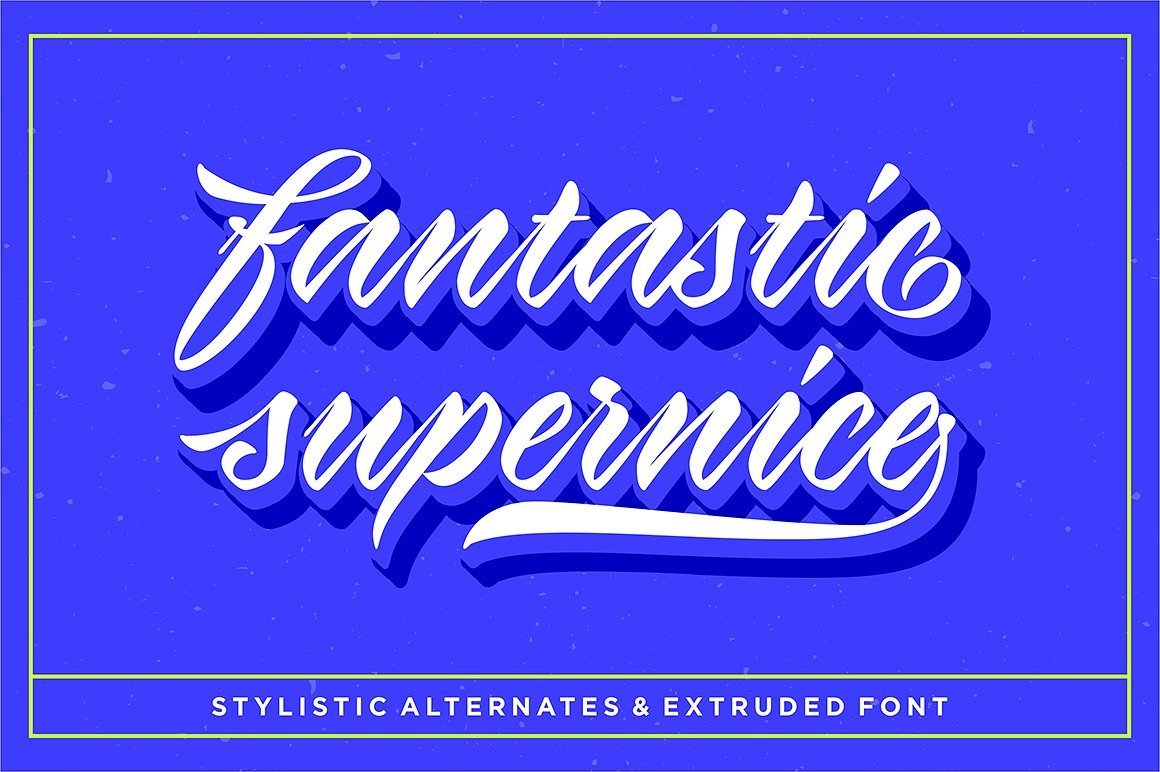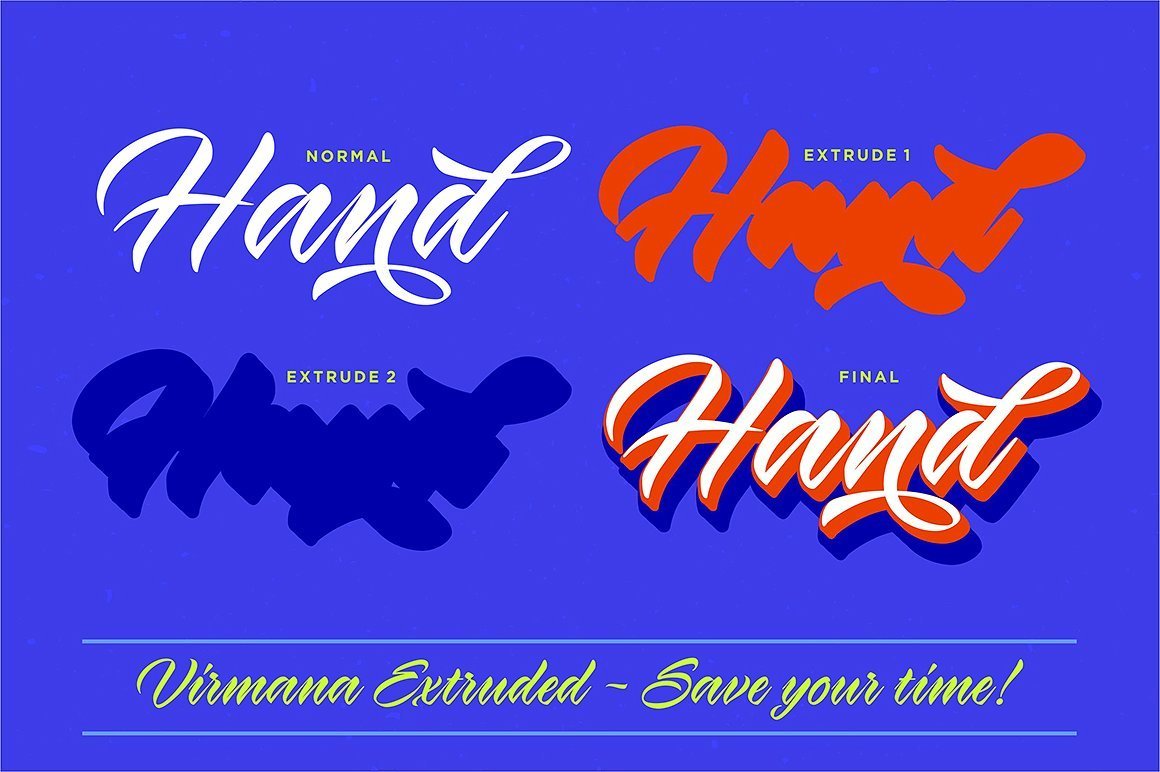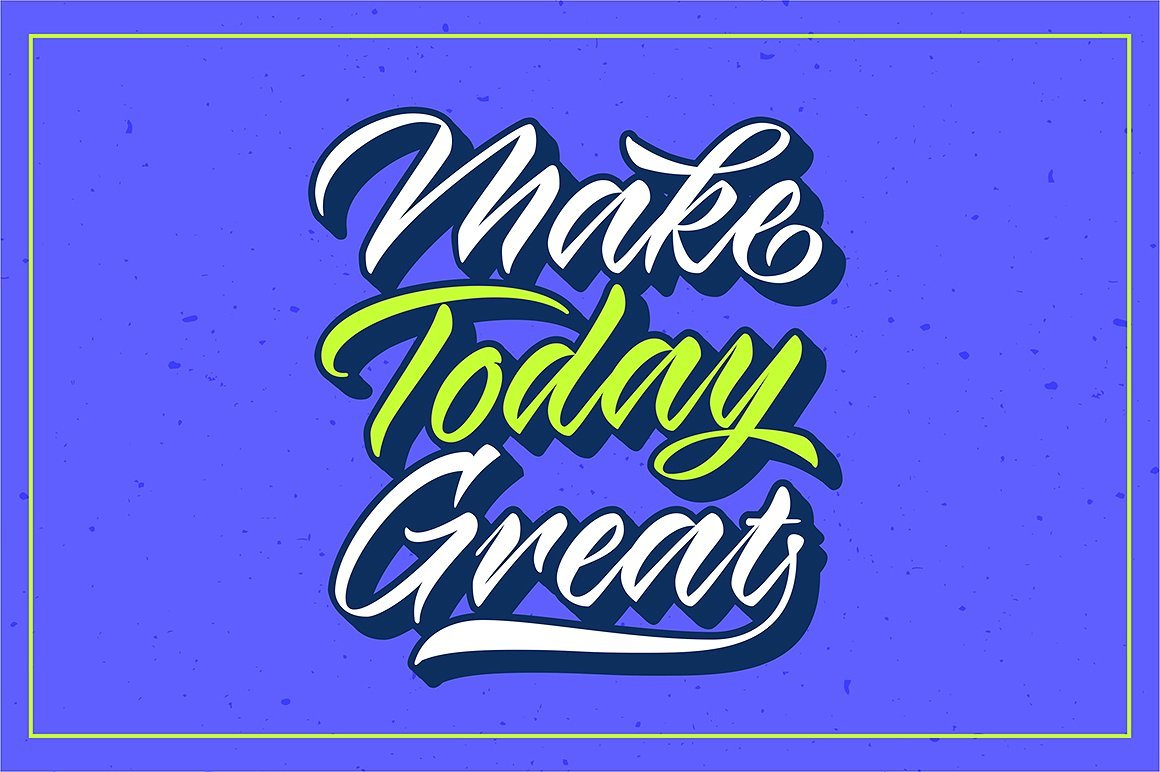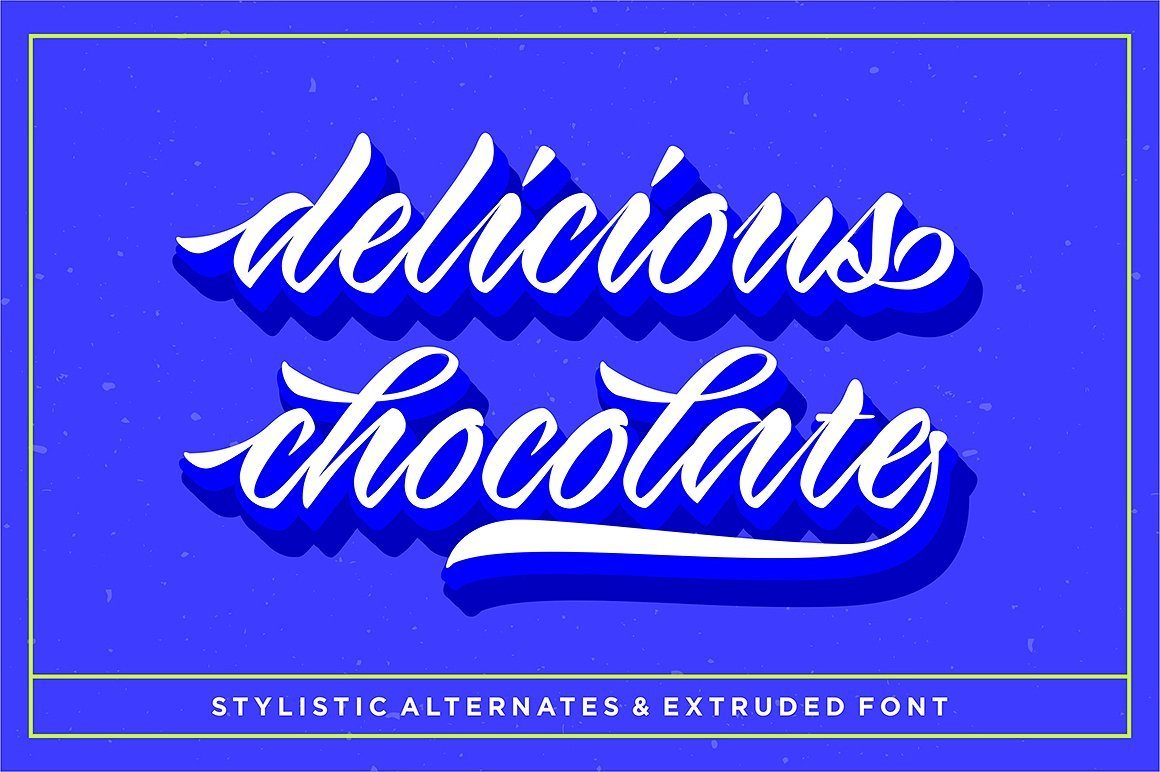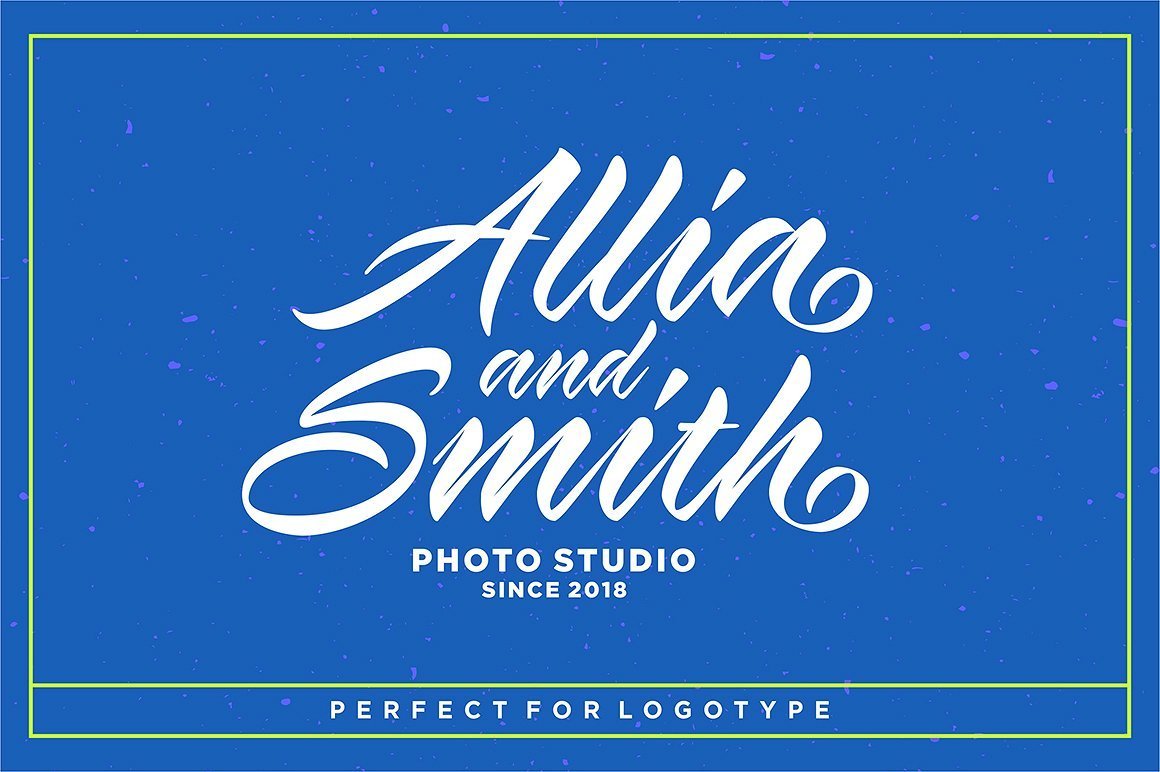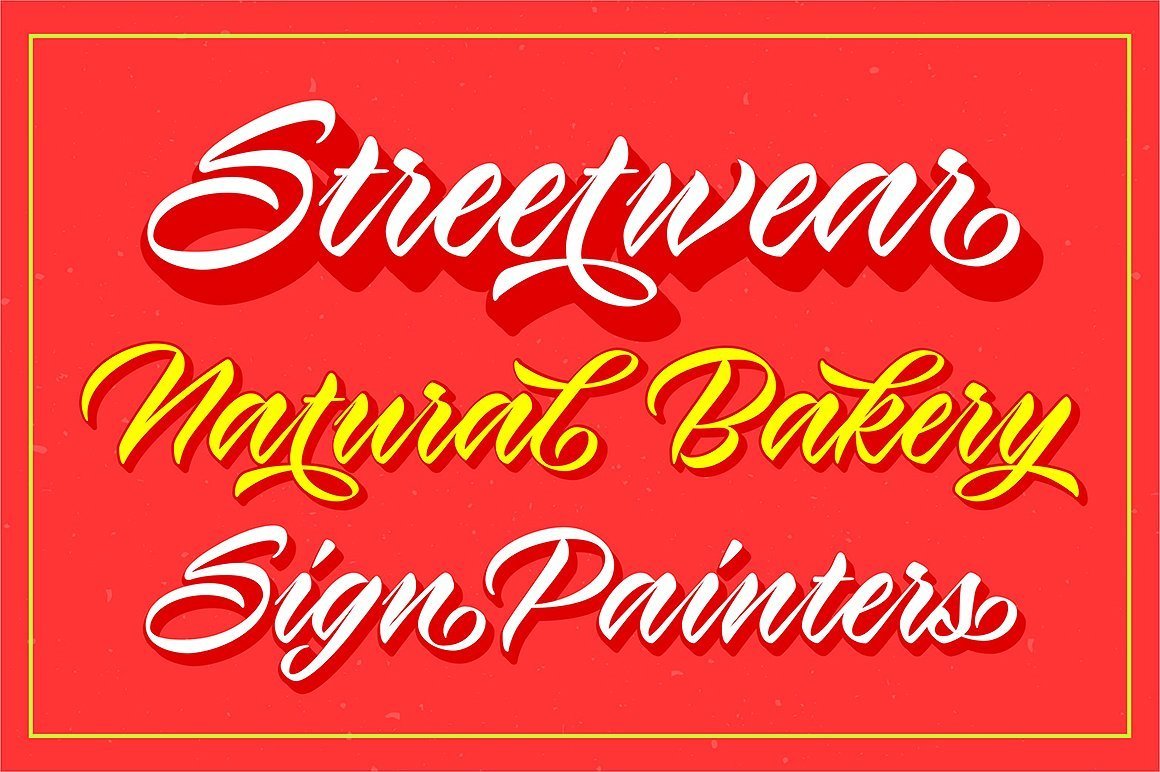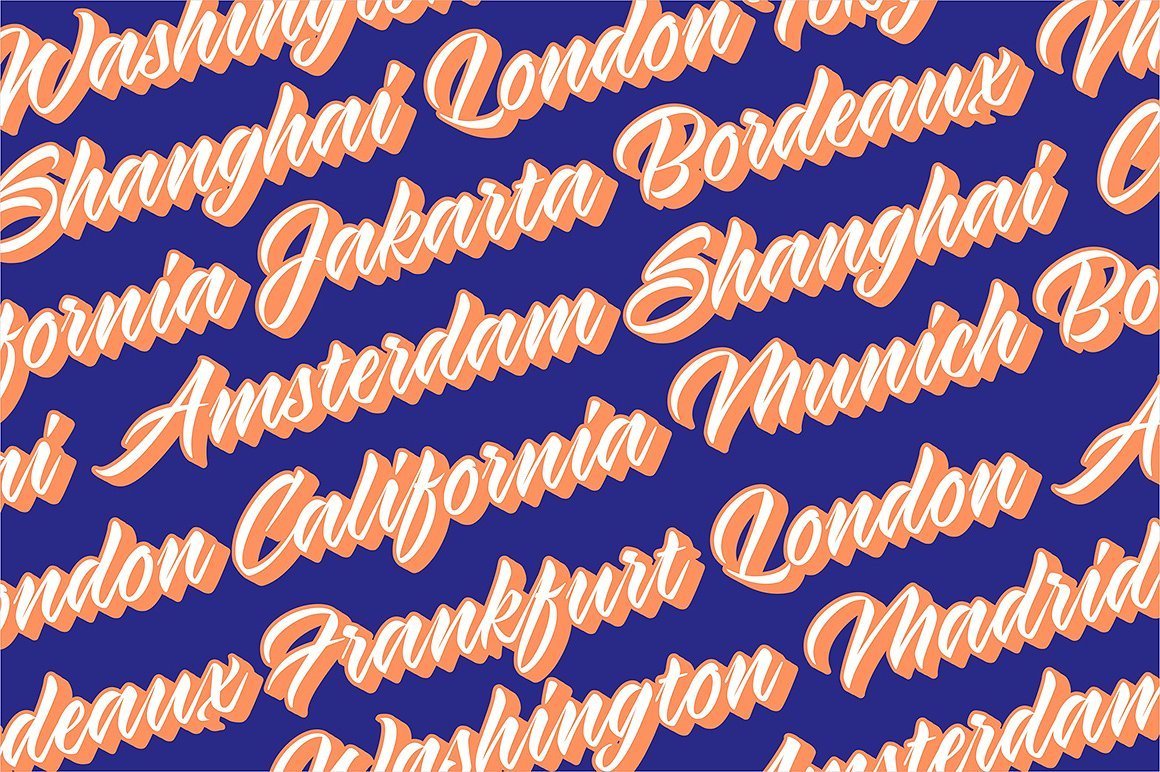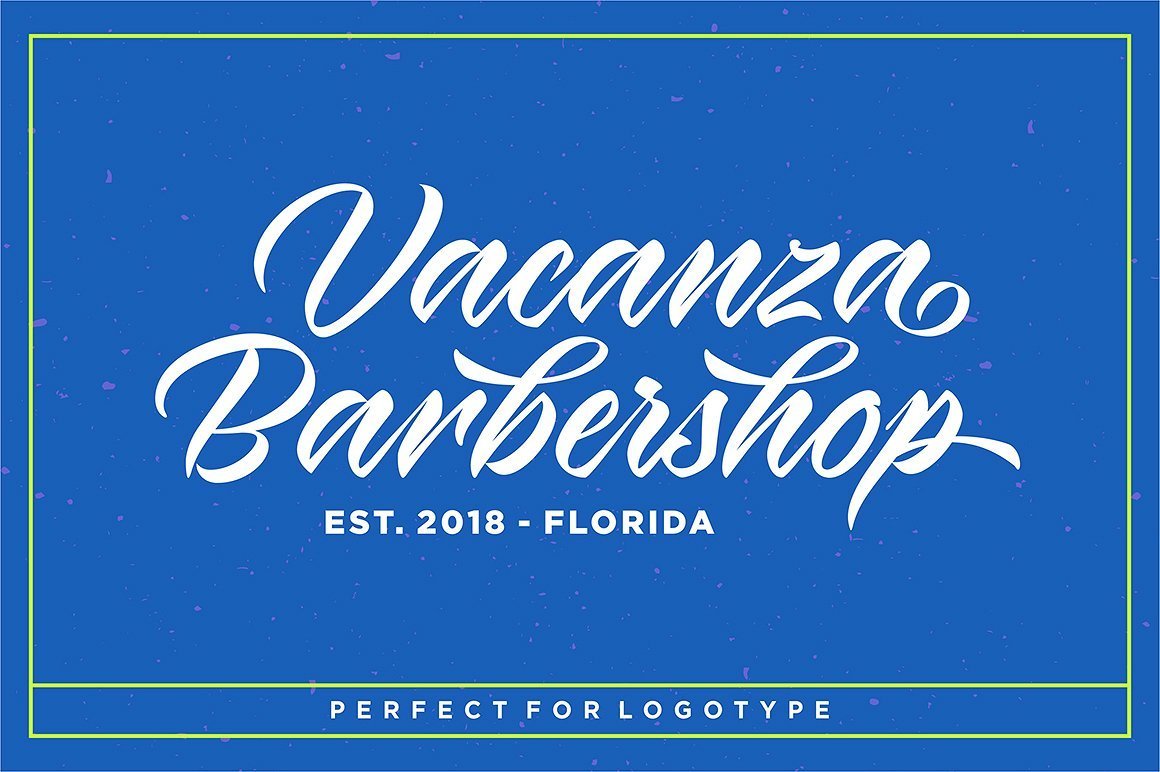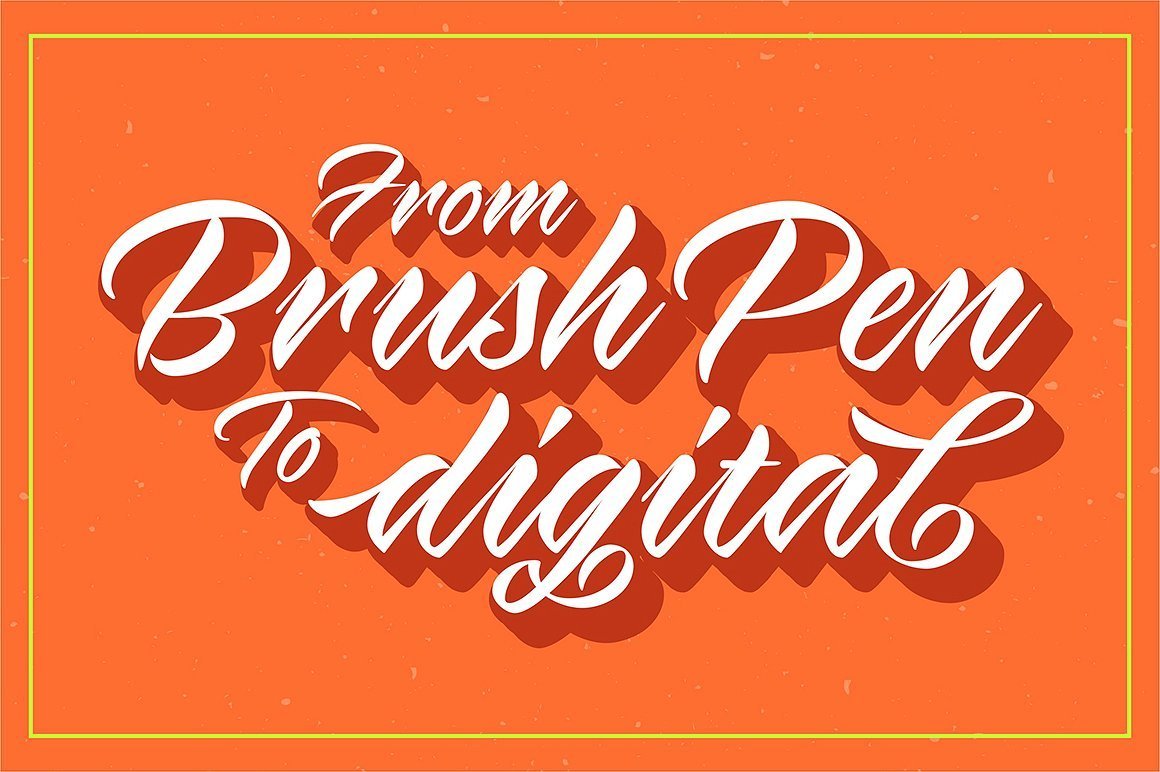
Virmana Script
About Virmana Script
Say hello to Virmana Script a retro calligraphy brush stroke font, perfect for use in logotypes and more! This font has a poppy, bold appeal and comes with three styles so you can layer for an incredibly stylish look to your projects. Features Open type feature, stylistic alternates, ligatures and International support for most Western Languages. You need a program that supports OpenType features such as Adobe Illustrator CS, Adobe Photoshop CC, Adobe Indesign. Perfect to creating modern designs like logos, branding, posters, social media, wedding invitation, headline, apparel design and more. All lowercase letters include stylistic alternates, beginning & end swashes, that makes the font look fabulous! Virmana Script includes (total 3 fonts): Virmana Regular Virmana Extrude 1 Virmana Extrude 2 ( Including both, OTF and TTF ) These are all coded with PUA Unicode. Mac users can use Font Book and Windows users can use Character Map to view and copy any of the extra characters to paste into your favourite text editor/app. If you have any questions or problems, please don’t hesitate to message me.